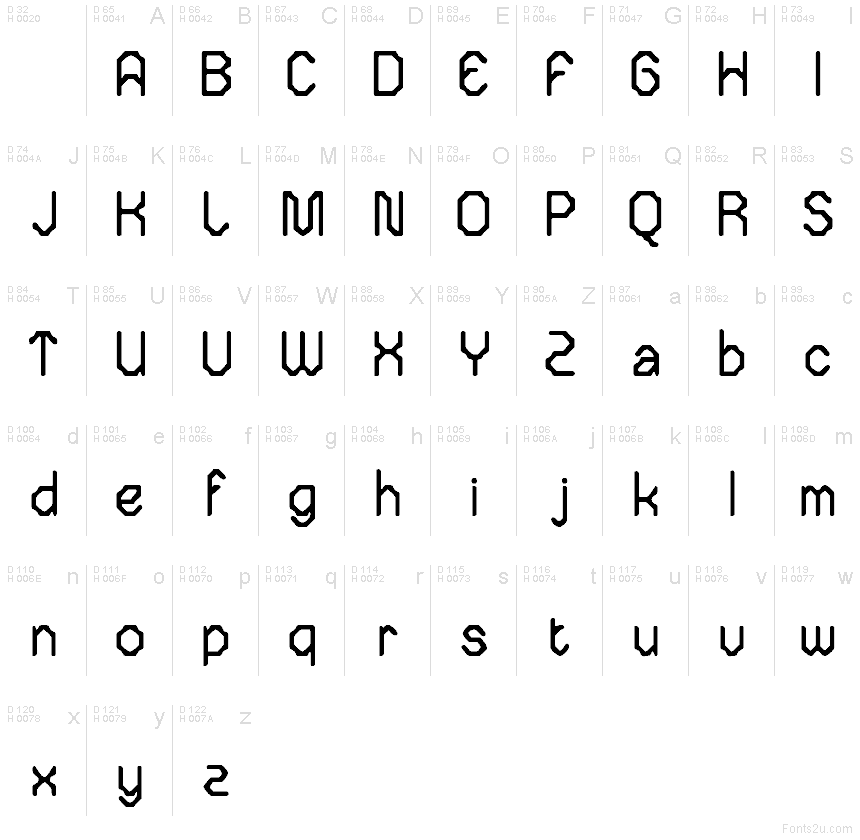
CSRushedDrawn-Regular Demo
CS Rushed Drawn font by Craft Supply Co. is a free techno display font. Built around a single-stroke “tubing” concept, its hexagonal bends, rounded caps, and bevelled joints create a crisp, circuit-like rhythm with a hand-drawn snap. The forms feel modular yet human—like neon bent on a grid—so headlines lock up cleanly while still buzzing with energy. Part of the CS Rushed family, it delivers that rare mix of precision and personality.
This free font shines on sci‑fi posters, gaming overlays, tech event branding, app splash screens, gadget packaging, stickers, and futuristic signage. The steady monoline keeps spacing predictable at large sizes, so you can push letterspacing tighter for a compact, beacon-like read. Using CS Rushed Drawn, pair big display lines with a neutral geometric sans for body copy to let the tubing texture take the spotlight.